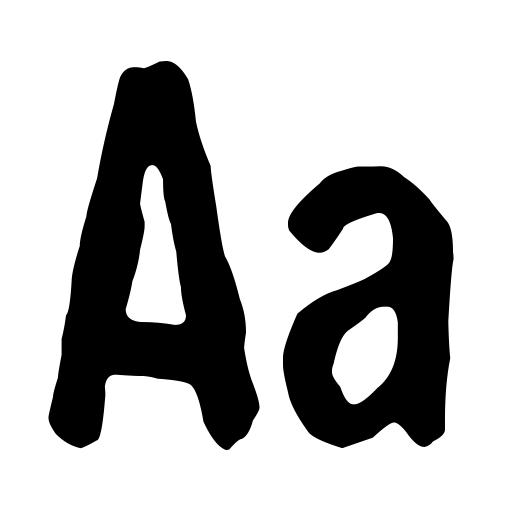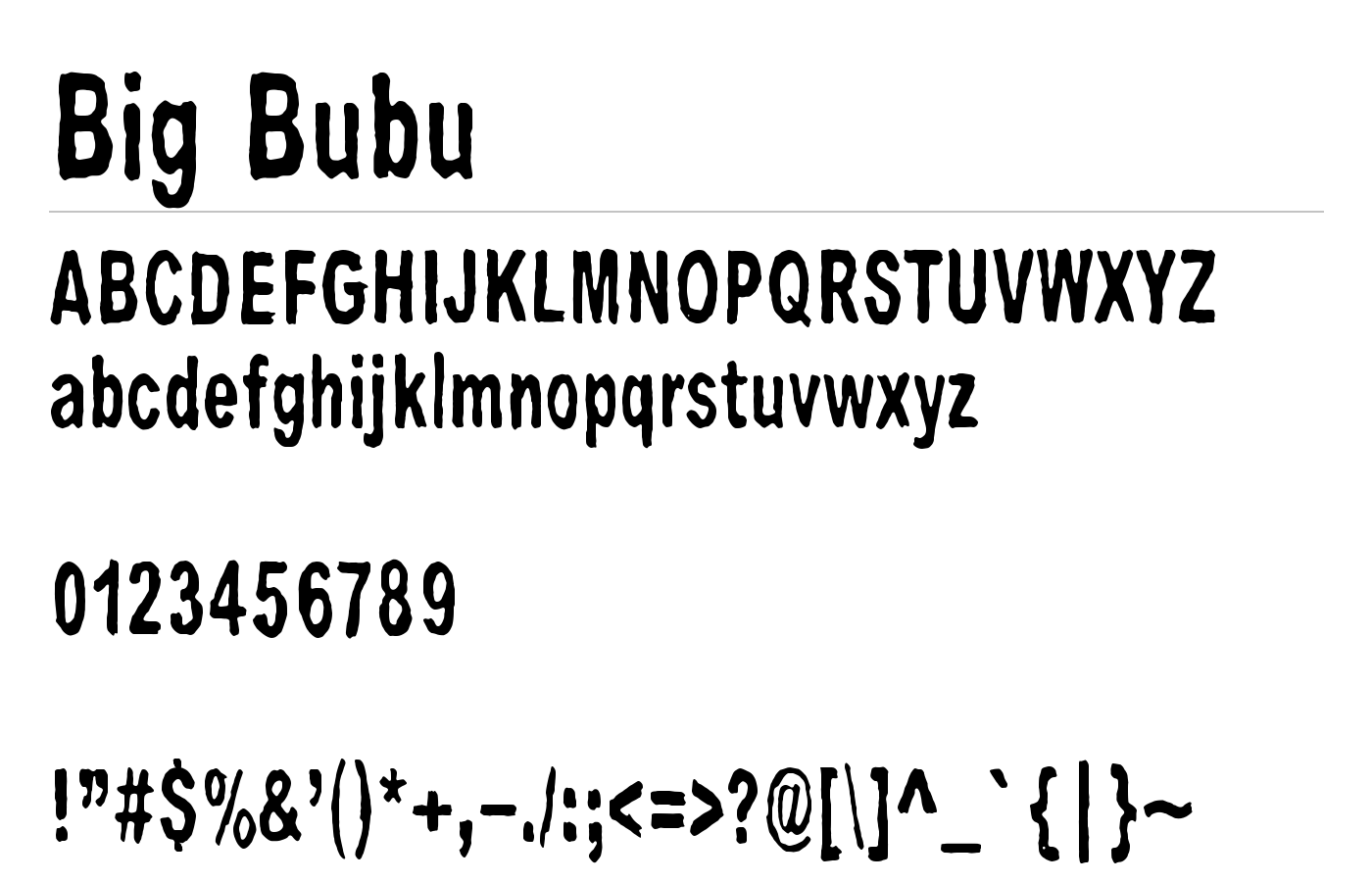
Big Bubu is a quirky, hand-drawn sans serif font with a chunky, uneven texture that gives it a playful and informal character. Its tall, slightly condensed letterforms and rough edges make it perfect for creative designs that want to feel approachable and fun. This font works well in headlines, posters, and branding where a casual, handmade vibe is desired.
Big Bubu Font
About Big Bubu Font